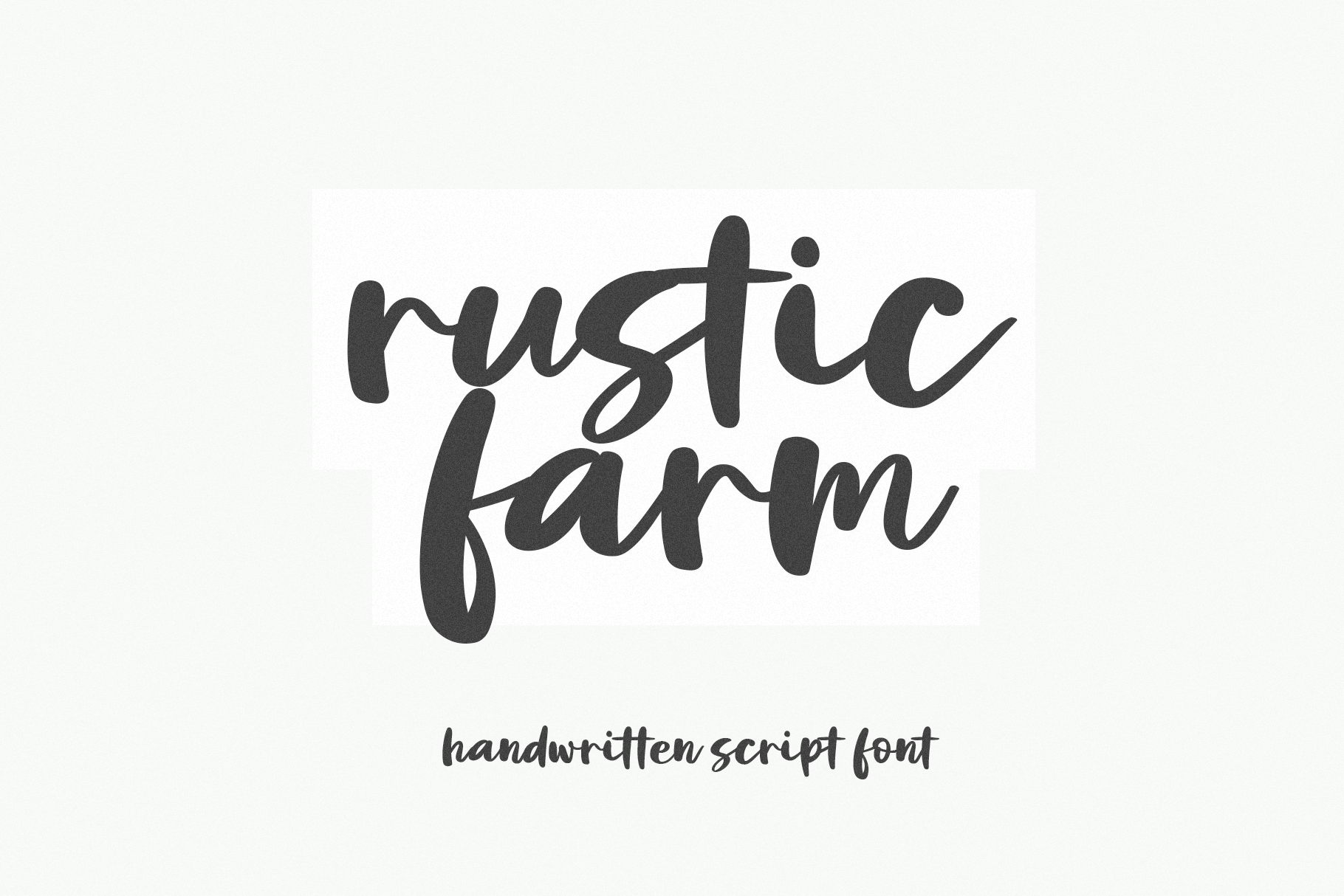
Rustic Farm | Farmhouse Script Font
Rustic Farm is a farmhouse brush font.
This font is perfect for cricut projects, farmhouse signs, logos, shirts, mugs, stickers, goodnotes and more!